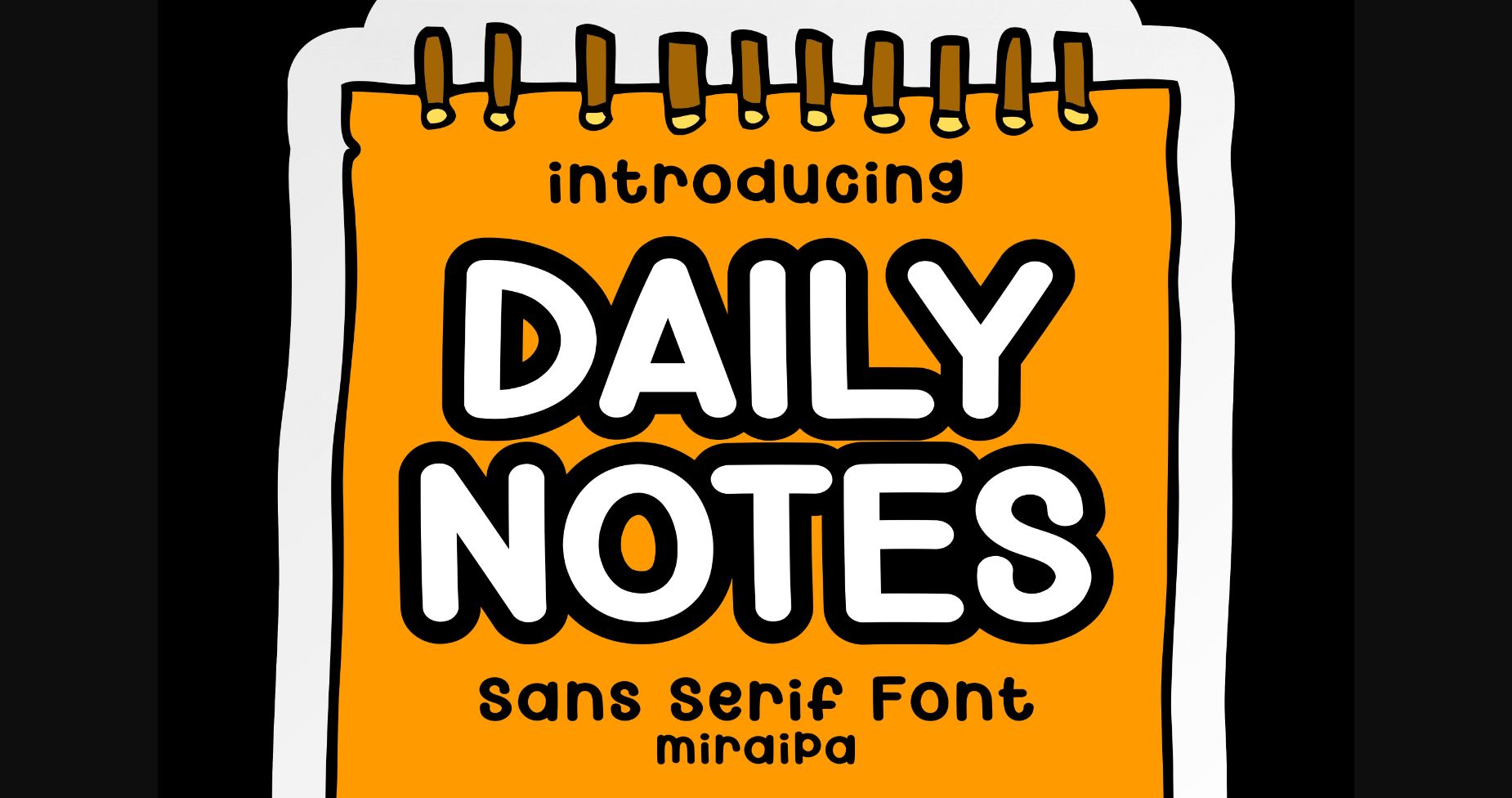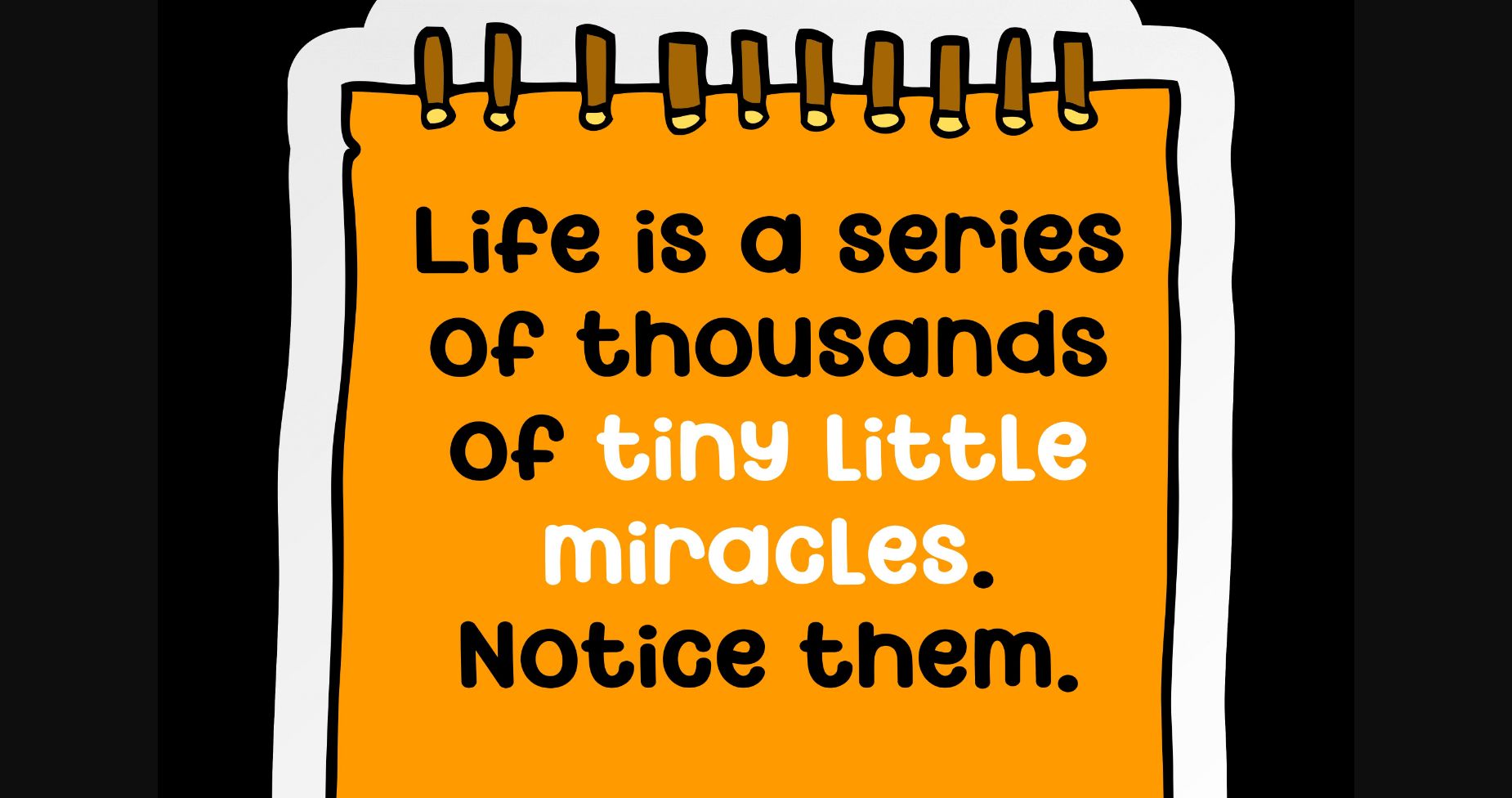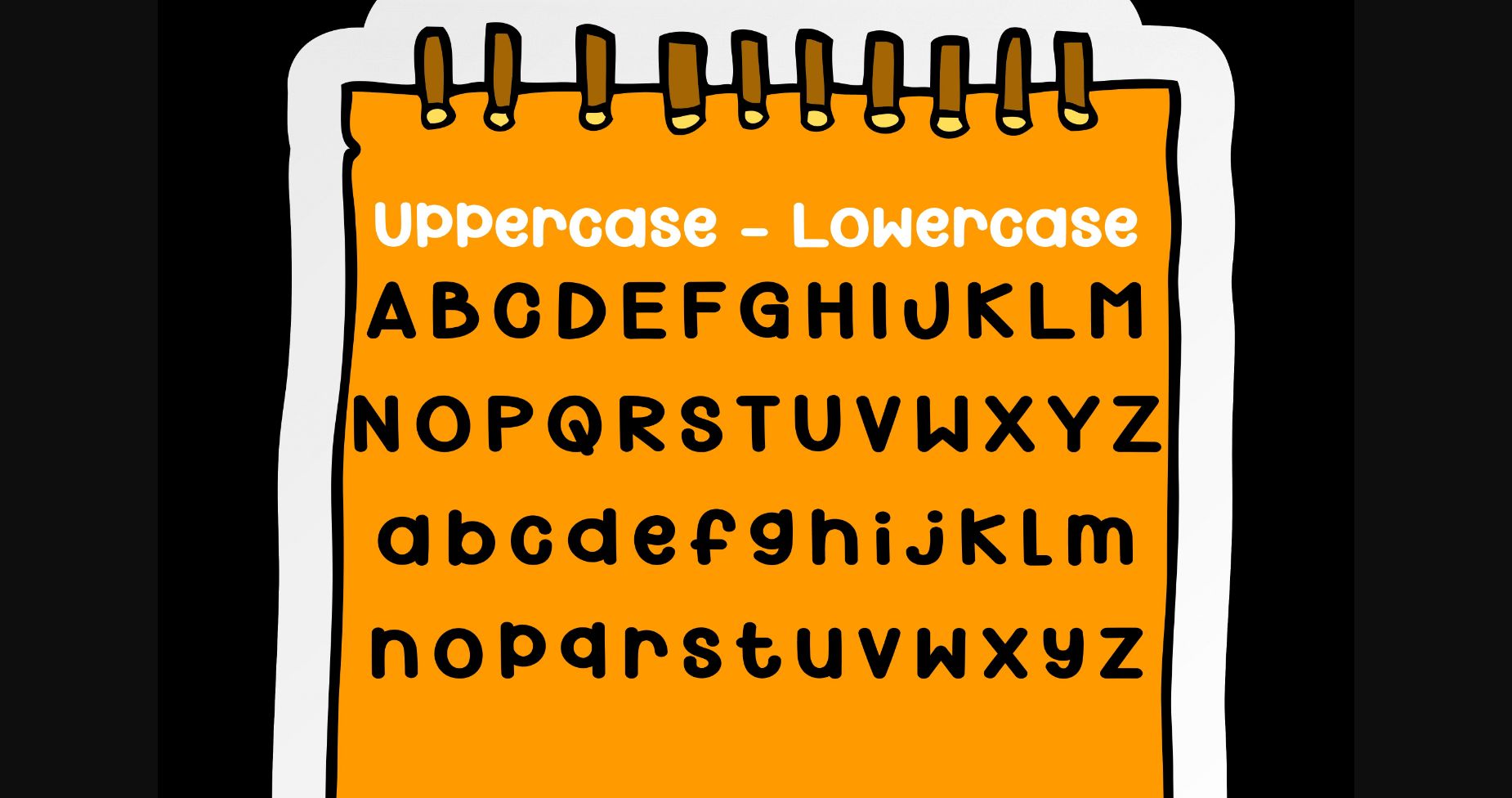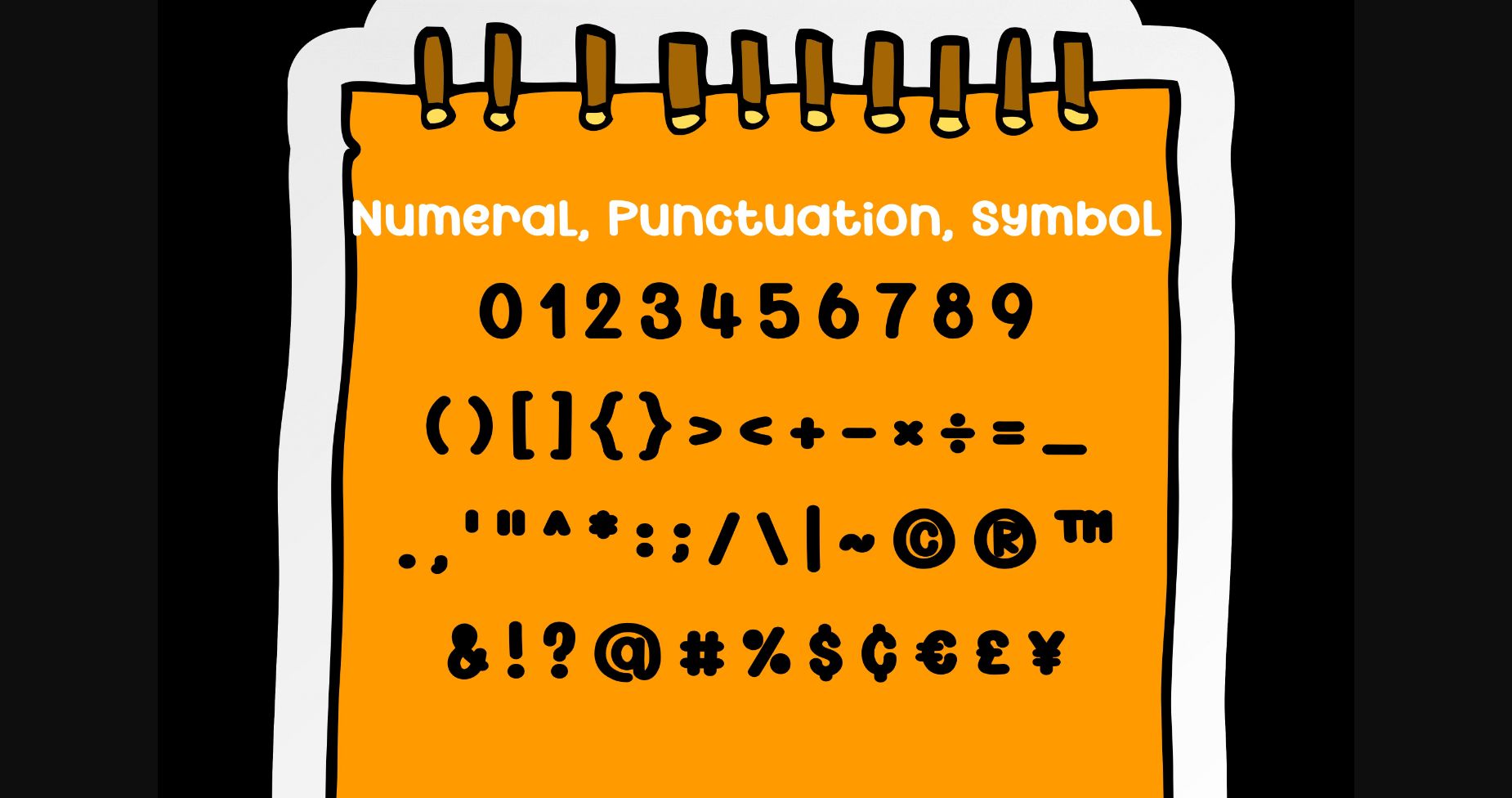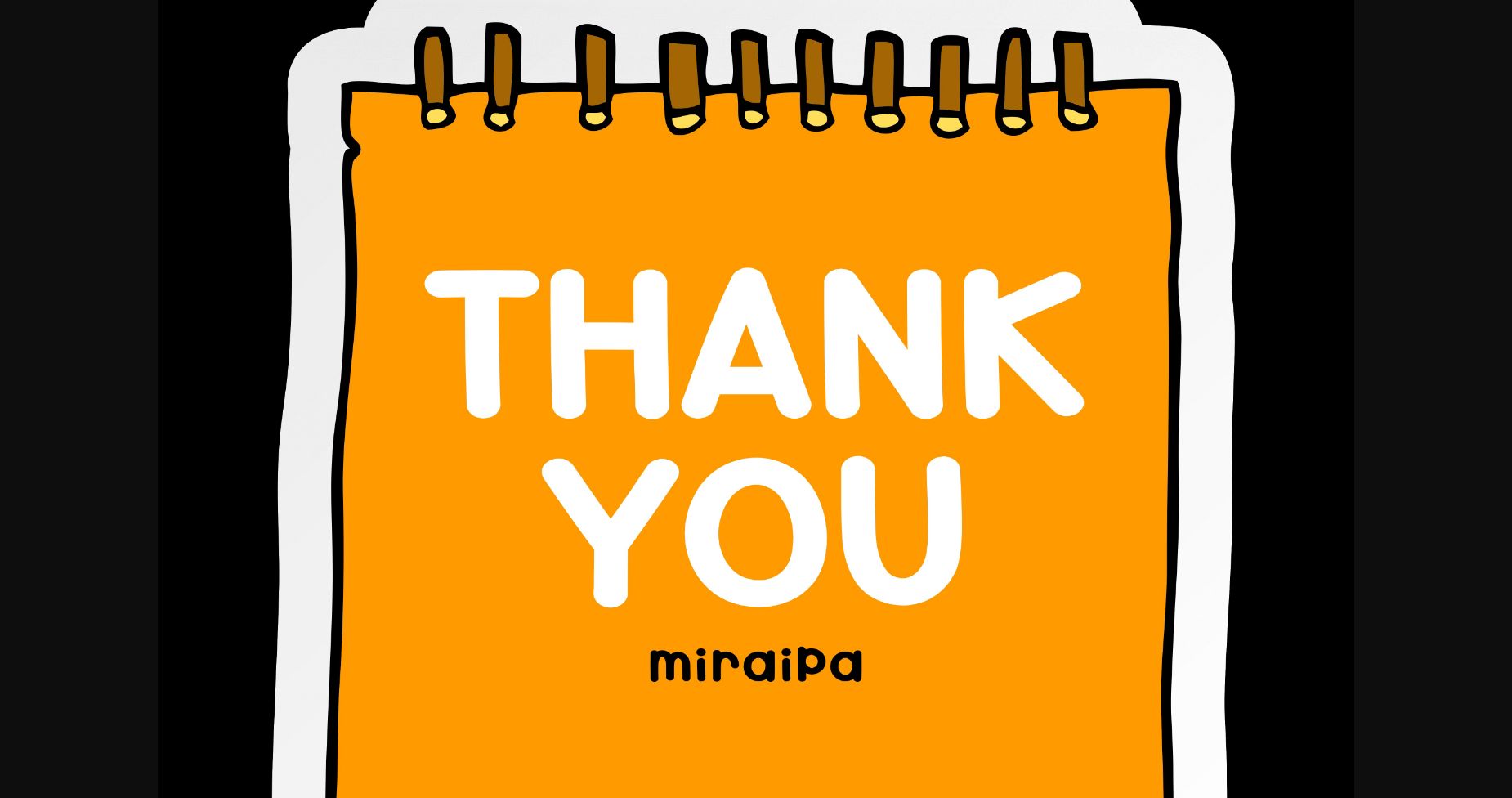
Daily Notes Font
About Daily Notes Font
Meet the perfect sans-serif font for any friendly and approachable design project. Daily Notes combines clean lines and curves with a touch of playfulness, creating an attractive and easy-to-read typeface. Whether for branding, packaging, or web design, this font is sure to make your message feel warm and welcoming.